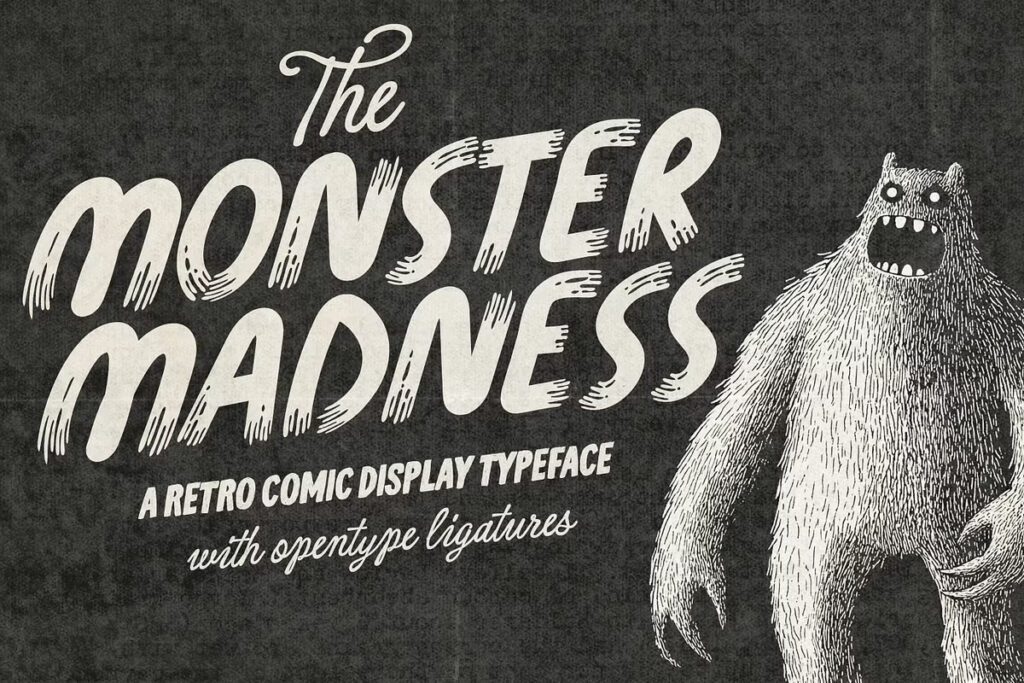
Monster Madness Typeface: A Playful Retro Comic Book Font for Spooky Season
As spooky season approaches, it’s the perfect time to add a touch of playful retro fun to your designs! Enter Monster Madness Typeface—a bold and quirky comic book style font that’s perfect for Halloween-themed projects, posters, branding, and more. With three unique styles, Monster Madness is versatile, engaging, and ready to bring your creative visions to life.
Why Choose Monster Madness Typeface?
Monster Madness is a retro-themed typeface designed to bring a nostalgic comic book feel to your designs. Available in Regular, Upright, and Oblique styles, this font allows you to create a dynamic and playful look in all your projects. It’s also PUA encoded, making it easy for users who don’t have OpenType capable software to access all the awesome ligatures and stylistic alternatives.
Key Features of Monster Madness:
Three Style Variants: Upright, Regular, and Oblique—perfect for creating distinct designs with a fun, retro comic book vibe.
OpenType Ligatures: Monster Madness comes to life when you turn on your OpenType ligatures, adding extra flair and personality to your text.
Best Uses for Monster Madness Typeface:
Spooky Season Designs: Perfect for Halloween posters, party invitations, and spooky merchandise.
Comic Book Themed Projects: Bring that classic comic book vibe to life in your designs with its bold and playful structure.
Branding & Packaging: Add a nostalgic, retro twist to your logos, packaging, and branding projects.
Social Media Graphics: Stand out on social platforms with bold and engaging typography that captures attention.